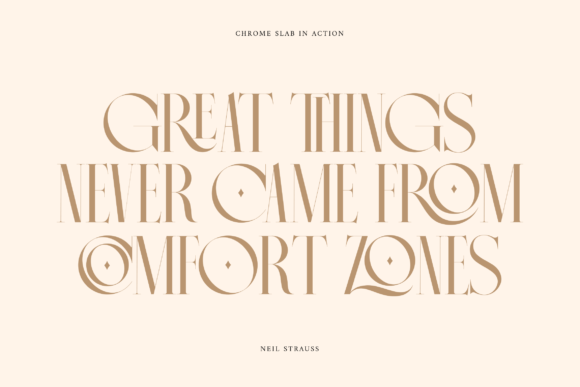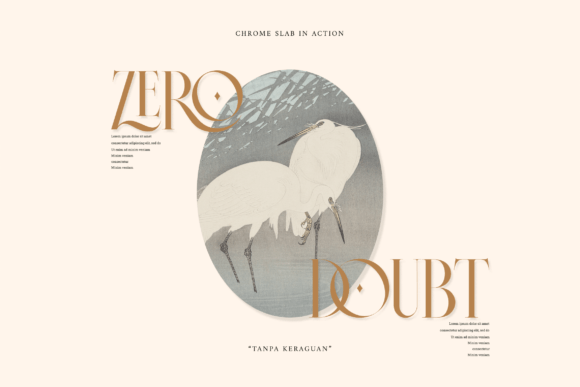
Chrome Font
Introducing Chrome, our brand new aesthetic semi-condensed serif font that embodies a perfect balance of elegance and versatility. With its captivating uppercase characters and exquisite design, this font is set to elevate your design projects to new heights.
Chrome boasts up to 45 beautiful ligatures, meticulously crafted to add a touch of sophistication and uniqueness to your typography. These ligatures seamlessly blend letterforms together, creating fluid and visually pleasing connections that enhance the overall aesthetic appeal of your text.
The semi-condensed structure of Chrome optimizes space utilization, allowing for efficient and impactful designs without sacrificing readability. Its compact yet elegant proportions make it perfect for a wide range of applications, including editorial designs, branding materials, packaging, and digital displays.
With Chrome Slab, you’ll have a powerful tool at your disposal, enabling you to create visually striking and professionally polished designs. Its aesthetic appeal, versatile ligatures, and multilingual support make it a must-have font for designers seeking to make a lasting impression.